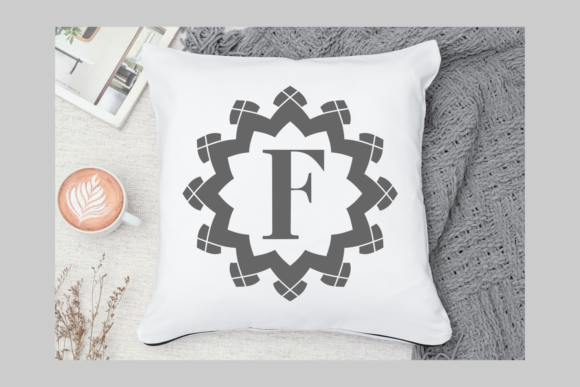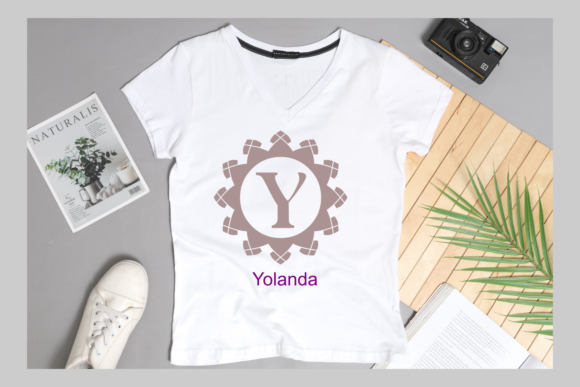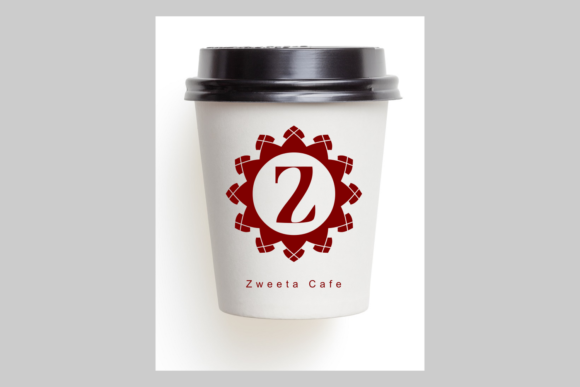
Introduction to Monogram Dixones Font
Have you ever been working on a creative project, pouring your heart and soul into every detail, only to feel like something’s missing? That’s where the perfect font comes in – a game-changer that elevates your design from ordinary to extraordinary. For me, that font is the stunning Monogram Dixones Font.
This beautiful decorative font is a designer’s dream come true. With its intricate details and high-quality design, it’s the perfect addition to any project that requires a touch of elegance and sophistication. Whether you’re working on love letters, wedding invitations, or simply want to add a creative flair to your designs, the Monogram Dixones Font is a valuable resource that will take your projects to the next level.
Key Features of Monogram Dixones Font
- Unique monogram design with a transparent background for versatility
- Perfect for use in graphic design, branding, and other creative endeavors where a distinctive monogram is desired
Honest Review: Monogram Dixones Font
I recently stumbled upon the Monogram Dixones Font, and I must say it’s been a delightful addition to my design toolkit. The high quality of this font is evident from the first glance, making it an excellent resource for any creative project.
Here are some of the things that work well with the Monogram Dixones Font:
- ✨ The font’s elegant and sophisticated design makes it perfect for formal and professional projects.
- ⚠️ The font may not be suitable for projects that require a bold, playful, or modern feel.
- ⚠️ Some users may find the font’s design a bit too ornate or complicated.
Overall, I’m impressed with the Monogram Dixones Font. It’s a solid design resource that’s perfect for projects that require a touch of elegance and sophistication. With its high quality and free download, it’s definitely worth considering for your next creative project.